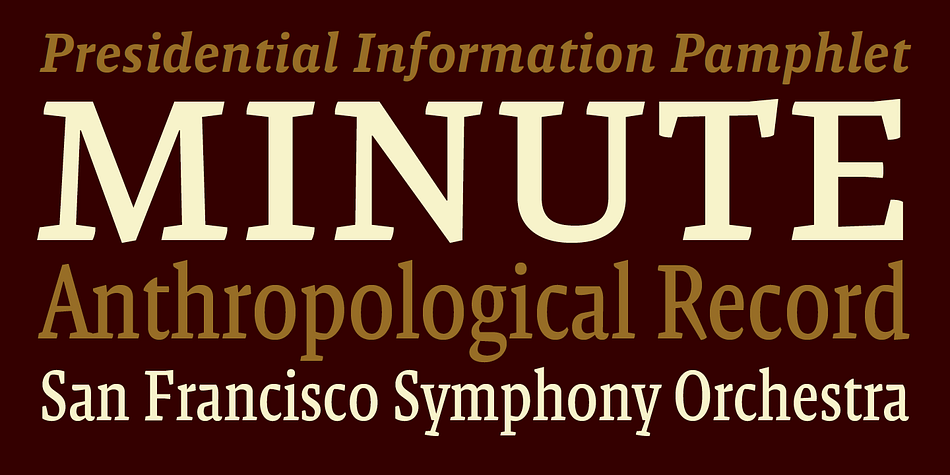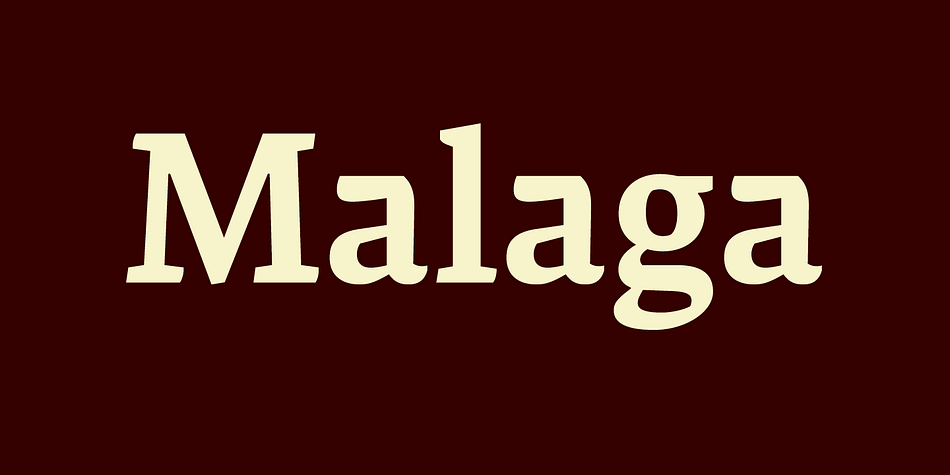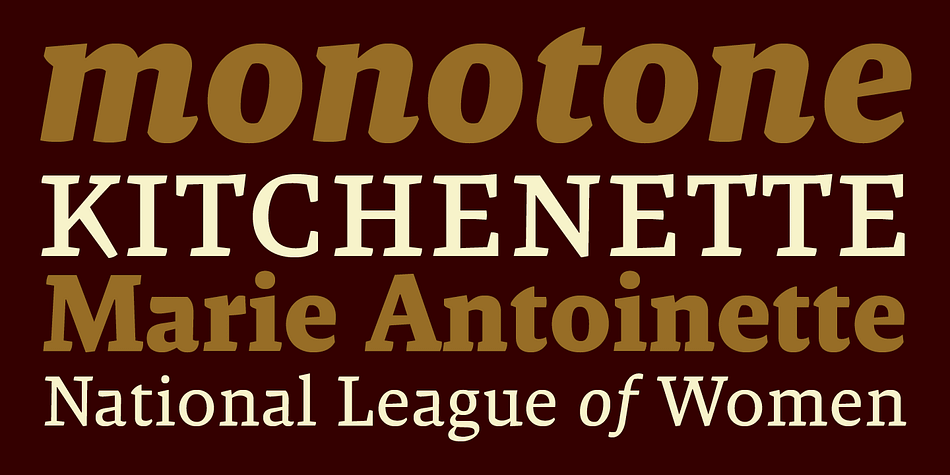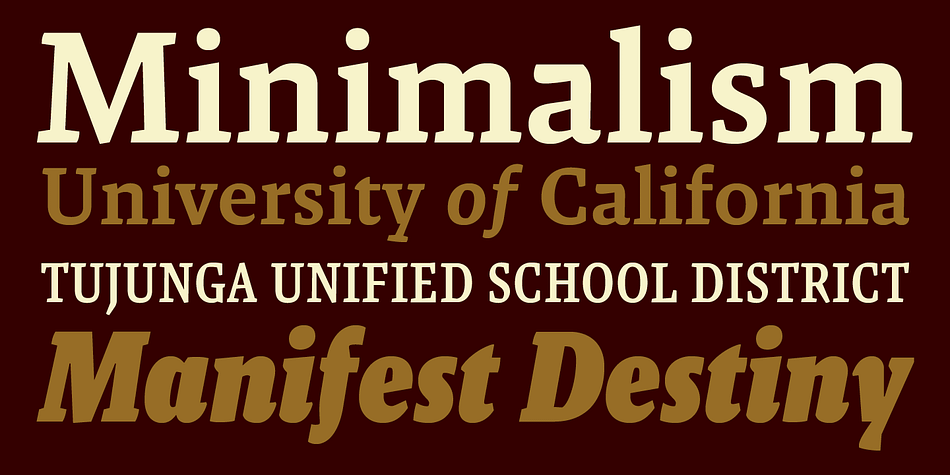
Designed by Xavier Dupré, Malaga is a serif and slab serif font family. This typeface has sixteen styles and was published by Emigre.
Why do we need another typeface?
This is a prickly question often asked of typeface designers. Depending on who you ask, the answer in simplified form is usually one of two:
1. As the basis of written communication, type design carries social responsibility, so we must continue to improve legibility.
2. Type design is a form of artistic expression. Without art, life is not worth living.
The best work, of course, accomplishes both.
Xavier Dupré, the designer of the Malaga typeface family, has at least one leg securely planted in the latter notion. He believes, like others, that within typeface design most legibility needs have been worked out and that today we are satisfying aesthetic desires. We design typefaces to differentiate our communications. Type design is primarily a formal exercise reflecting our personal quirks, technological obsessions, and cultural heritage.
In case of Dupré’s work, issues of cultural heritage and personal quirks are of particular consequence. An incessant traveler, he visited the following countries during the development of the Malaga type family: Thailand, Malaysia, Indonesia, Myanmar, Cambodia, Vietnam, France, Belgium, and finally, Spain, where his choice for the name Malaga originates (Malaga is a port city in southern Spain).
Dupré’s home is where his laptop is. He travels with a 12- or 15 inch PowerBook, without a printer, and with sporadic access to his reference books and other historical documents. All he needs is a table and chair. He even learned to design without a mouse since hotel and cafe tables are often too small to also fit a mousepad.
Dupré is the new global designer who can take disparate influences and fluidly process the information into a coherent whole. Malaga is a case in point. It is inspired by ideas ranging from blackletter to Latin fonts, and from the Quattrocento’s first Venetian antiquas to brush stroke types. This makes Malaga a richly animated font saturated with unorthodox detail. Its black and bold weights are particularly suited for headlines and short texts, while the subtle modulation and moderate contrast in the regular and medium weights makes it perfectly readable in extended text settings.
While Malaga doesn’t claim to resolve any particular legibility issues, it is nonetheless perfectly readable and will impart any design with a healthy dose of visual character.